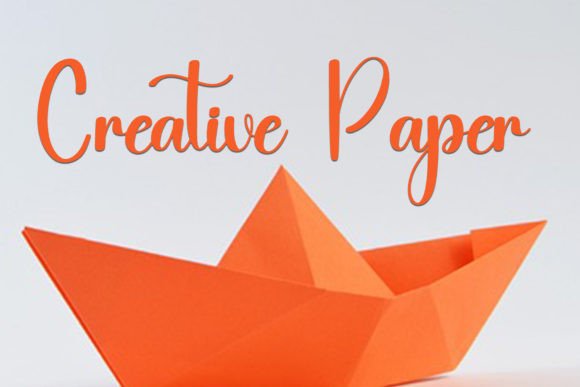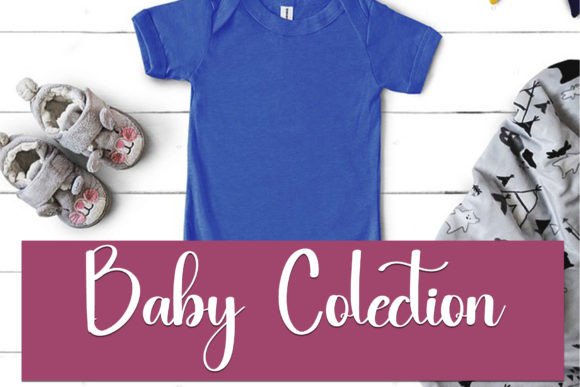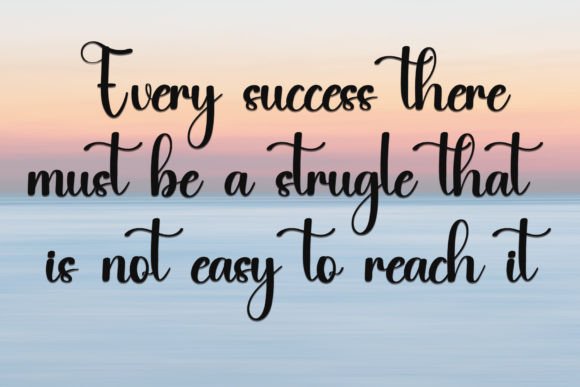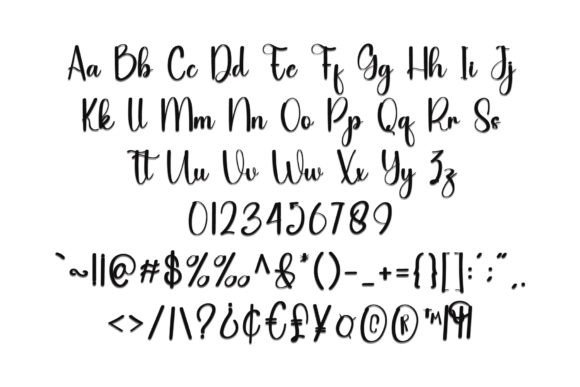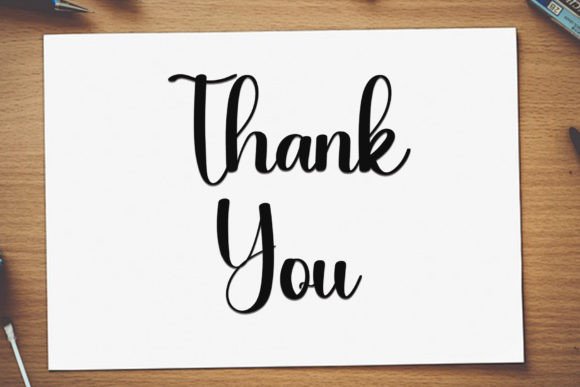
The Art of Handwritten Font: Bringing Character to Your Designs
Remember that moment when a simple sketch turned into a masterpiece? You envisioned a concept, and with a few strokes of your pen, it came to life. That’s the magic of creativity. Designers, especially, know the thrill of bringing an idea to the world through the perfect font. And that’s where Handwritten Font comes in – a beautiful, elegant handwritten font designed to elevate your projects and leave a lasting impression.
Handwritten Font is more than just a font; it’s a way to add a personal touch to your designs. With its unique, timeless style, it’s perfect for creating spectacular designs that stand out from the crowd. Whether you’re a seasoned designer or just starting out, this font is a valuable asset in your toolkit. It’s a must-have for anyone who wants to add a touch of personality to their work, making it a game-changer for designers.
Key Features of Handwritten Font
- Unique Characteristics: Handwritten Font features a natural, cursive script with subtle variations in letterforms, giving it a personal and elegant touch
Handwritten Font Review
I recently worked with the Handwritten Font and here’s my honest review.
- ✨ Unique aesthetic: The Handwritten Font has a charming, personal feel that’s perfect for creative projects, social media, and branding.
- ✨ Versatility: This font is available in a range of weights and styles, making it suitable for various design applications.
- ✨ Customization options: The font offers a decent level of customization, allowing you to tweak the look and feel to suit your needs.
- ⚠️ Limited legibility: At smaller font sizes, the Handwritten Font can be challenging to read, which may impact its usability.
- ⚠️ Limited language support: I found some language-specific characters to be missing or incorrectly rendered.
Overall, I’d say the Handwritten Font is a great choice for designers who want to add a touch of personality to their work. However, it’s essential to be mindful of its limitations, particularly in terms of legibility and language support. With careful use and consideration, this font can be a valuable addition to your design toolkit.
Alternatives to Handwritten Font for Designers
1. Brush Script
Brush Script is a font that mimics the look of hand-painted or brush-written text. It’s ideal for use in creative projects, such as invitation cards, posters, and advertisements where a personal touch is desired. Brush Script is more elegant and refined compared to Handwritten Font, which can be more casual and imperfect.
2. Lobster
Lobster is a script font that has a vintage and romantic feel to it. It’s suitable for use in wedding invitations, menus, and other materials where a touch of elegance is required. Lobster is more refined and sophisticated than Handwritten Font, but still conveys a sense of personal touch.
Pacifico is a beautiful script font that has a relaxed and casual feel to it. It’s ideal for use in branding, advertising, and other materials where a sense of friendliness and approachability is desired. Pacifico is more modern and clean compared to Handwritten Font, which can be more imperfect and casual.